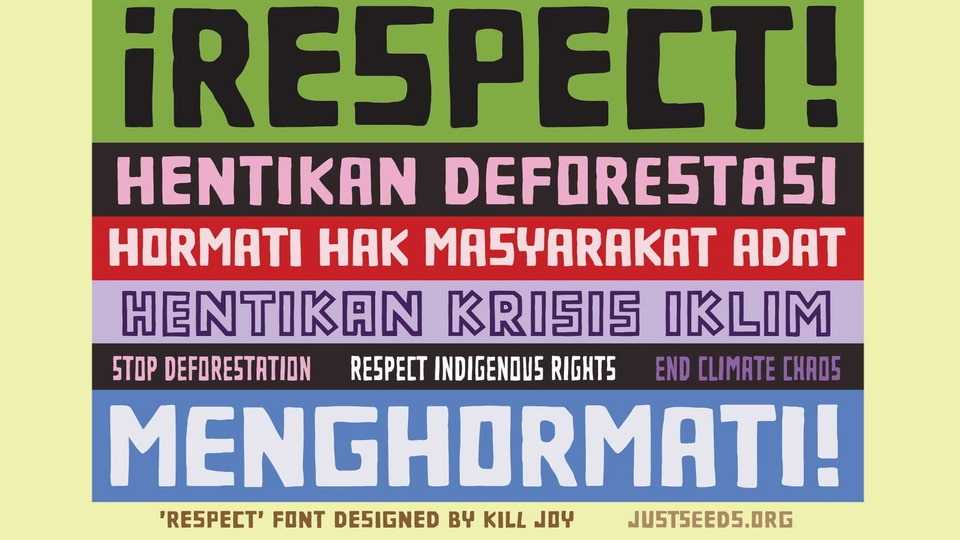
Download Respect font, a bold display typeface based on carved letterforms originally used for graphics they made for Keep Forests Standing:
Designer: Kill Joy